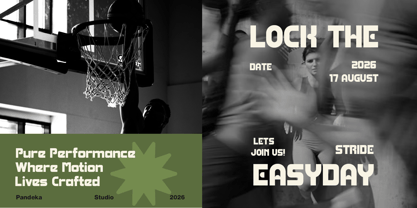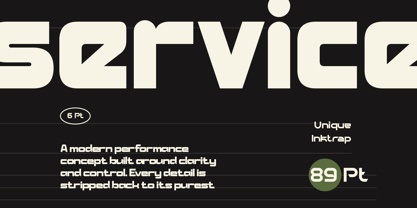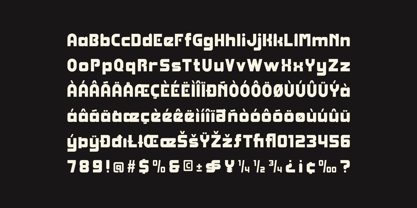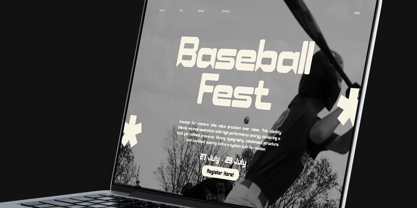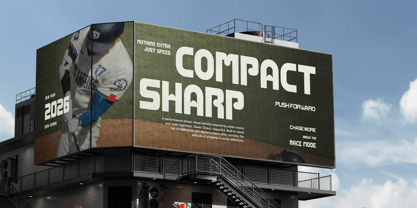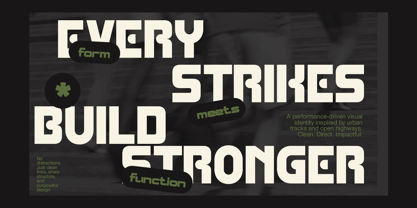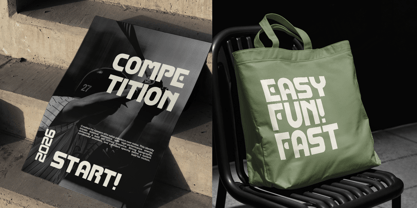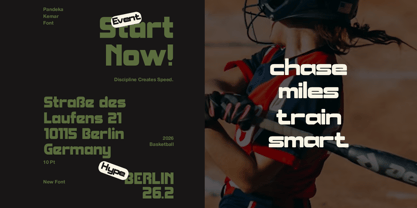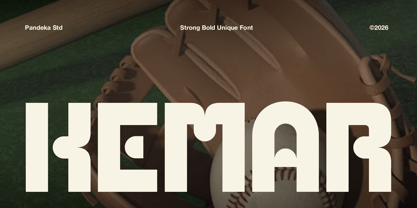
Kemar
von Pandeka Studio
Die Schriftfamilie Kemar wurde von Sagara Nararya entworfen und von Pandeka Studio veröffentlicht. Kemar enthält 2 Stile und Familienpaketoptionen. Mehr über diese Familie
Kemar is a modern sport font built for bold performance, speed, and competitive energy. Featuring strong geometric letterforms with clean edges and a futuristic athletic style, it delivers a powerful visual impact for sports branding, esports, fitness campaigns, and action-driven designs while maintaining excellent readability across print and digital media.
Available in 2 styles: Regular and Oblique, Kemar is ideal for sports branding, team logos, esports graphics, fitness branding, gym promotions, event posters, racing themes, basketball and football campaigns, product packaging, website headers, social media graphics, merchandise designs, signage, headlines, and modern promotional materials. It also includes multilingual support, making it suitable for creative projects worldwide.
• 2 Styles: Regular and Oblique
• Full Character Set: Uppercase, lowercase, numbers, symbols, and punctuation
Designer: Sagara Nararya
Foundry: Pandeka Studio